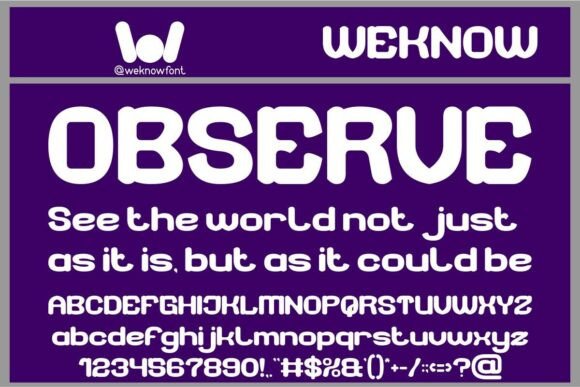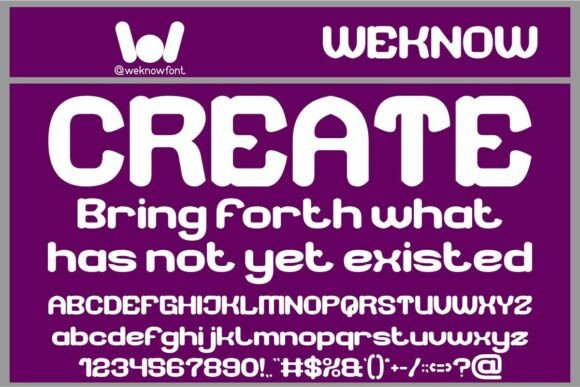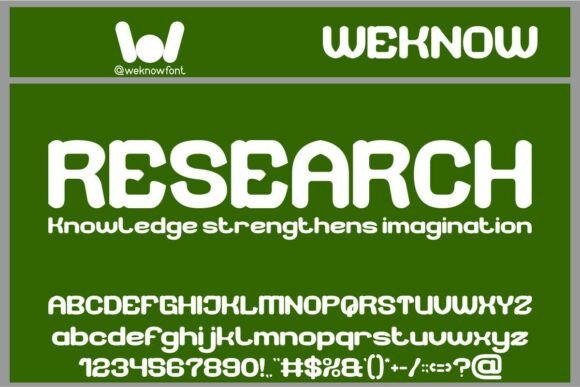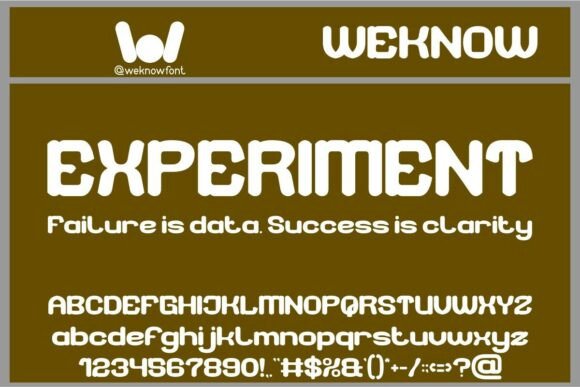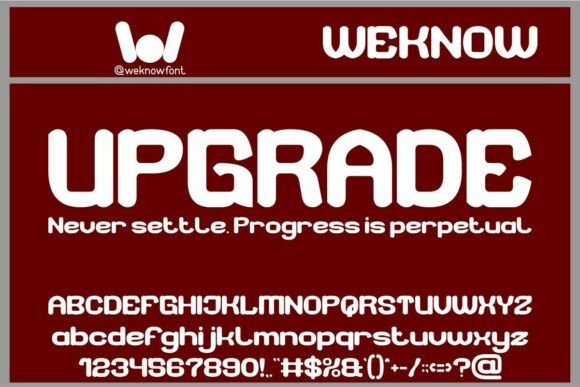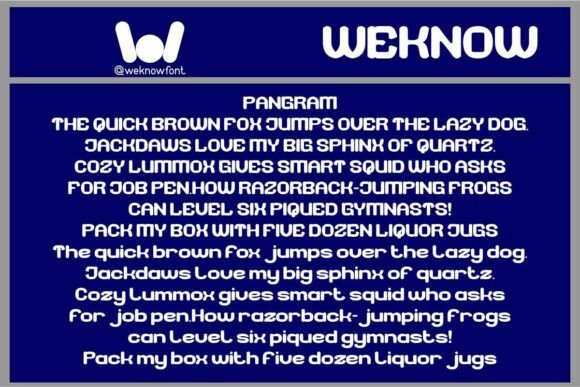
Introduction to Connect Brains Font
Do you remember the moment when a single font changed the entire vibe of your design project? For many creatives, that moment is what drives their passion for design. For you, it might be the moment you discovered Connect Brains Font – a game-changing addition to your design arsenal. With its futuristic charm and friendly ambiance, this font has been turning heads in the design world, and for good reason.
Whether you’re working on a high-profile branding project or a personal creative project, Connect Brains Font is a valuable resource that can elevate your design to the next level. Its versatility and high-quality design make it an excellent choice for logotypes, headlines, and corporate identities, as well as apparel designs and brand identities.
Key Features of Connect Brains Font
- High-quality design resource ideal for creative projects and professional applications.
- Unique, modern design with a transparent background, allowing for versatility and flexibility in design applications.
- Perfect for use in logos, branding materials, and other visual elements where a modern, creative touch is desired.
Honest Review: Connect Brains Font
I recently came across the Connect Brains Font, and I’m excited to share my thoughts on this design resource. As a designer, I’m always on the lookout for high-quality fonts that can elevate my creative projects.
The Connect Brains Font is available for free download, which is a major plus in my book. The font itself is quite unique and has a lot of character, making it perfect for projects that require a bit of flair.
- ✨ Unique and creative design: The Connect Brains Font is definitely one-of-a-kind, and its quirky charm is sure to stand out in any project.
- ✨ High-quality design: The font is well-designed and looks great at various sizes and resolutions.
- ✨ Transparent background: This makes it easy to use the font on top of any background without worrying about clutter.
- ⚠️ Limited font styles: While the font is unique, it’s only available in a few different styles, which might limit its versatility.
- ⚠️ Not suitable for formal projects: Due to its quirky design, the Connect Brains Font might not be the best choice for formal or professional projects.
Overall, I think the Connect Brains Font is a great addition to any designer’s toolkit. While it may have some limitations, its unique design and high-quality construction make it a valuable resource for creative projects.
The Connect Brains Font is ideal for a variety of creative projects, including logos, graphics, presentations, and documents. Its high-quality design and transparent background make it perfect for creating eye-catching and professional designs.